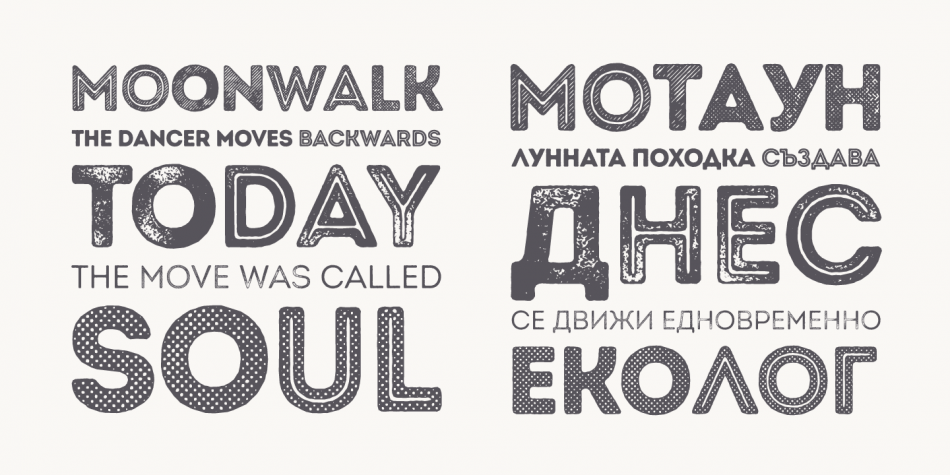
Intro Rust Font Family
Intro Rust designed by Fontfabric, this is a premium font, are sold on fontspring, but it was great, it is free today for download. Intro Rust Free font collection, a grunge, script & display sans collection by Fontfabric.